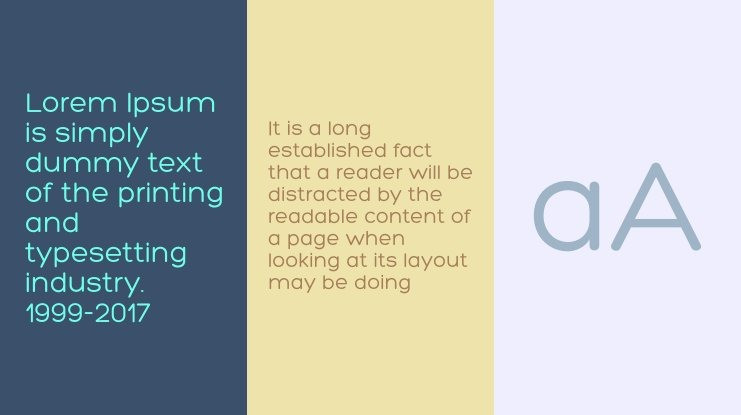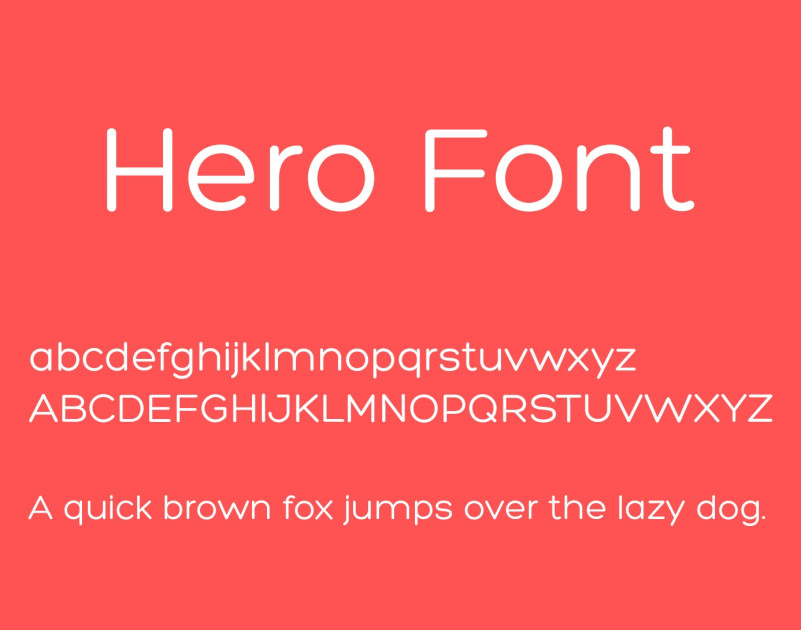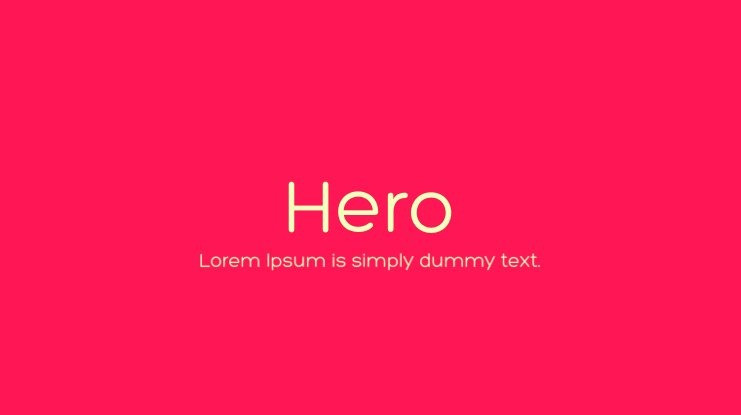
Hero Sans Serif font is applicable for any type of graphic design – web, print, motion graphics etc and perfect for t-shirts and other items like posters, logos.
| Designer Name: | Svetoslav Simov |
| Classification: | Display Fonts, Sans Serif Fonts |